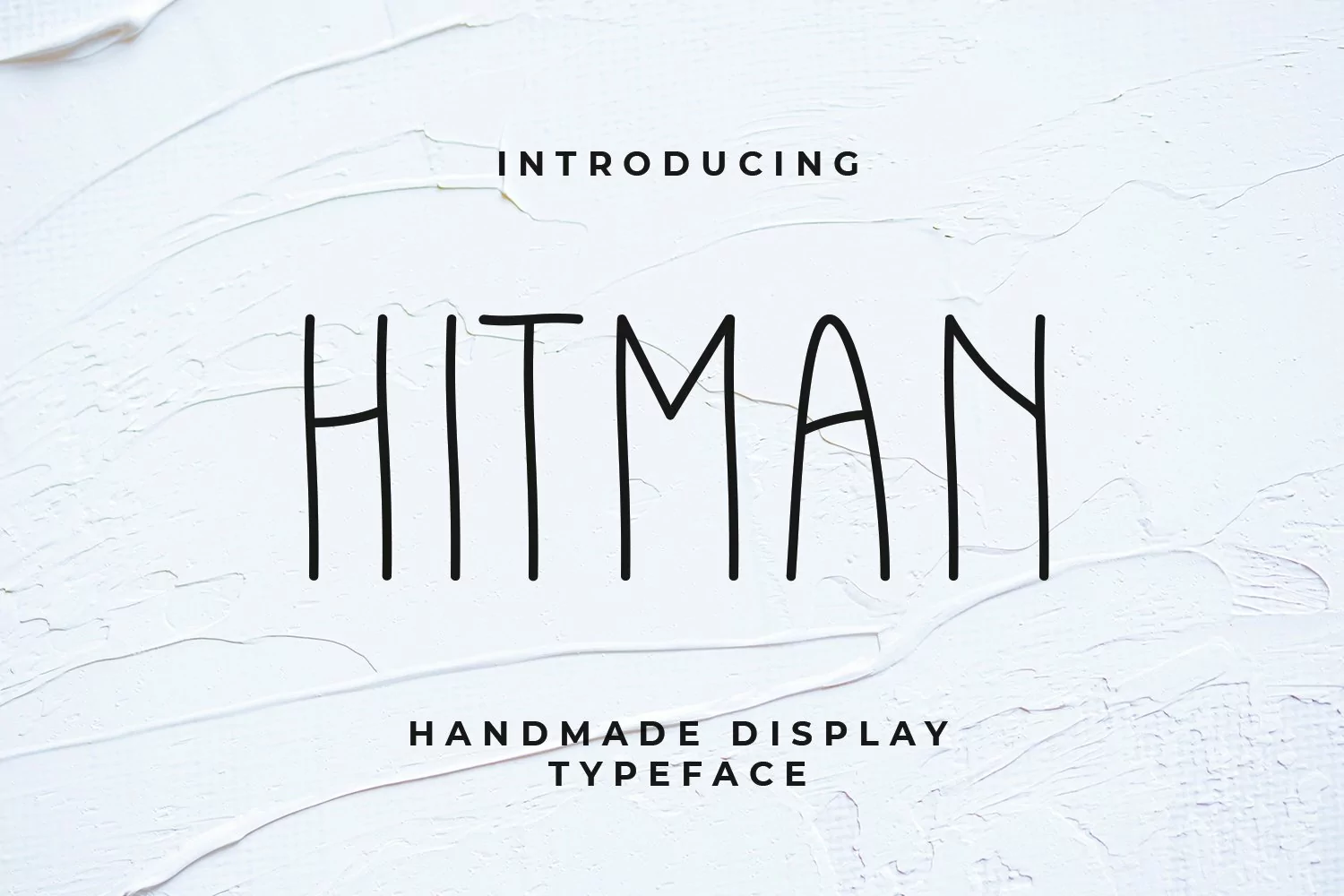
Hitman is a thin monoline font. Handwritten, this font has a casual and natural appearance. With a fun flair, Hitman would be a great choice for adding creating a cheery feel to projects such as tshirts, cards, invitations, posters, decals and more. Great for any project you can think of!